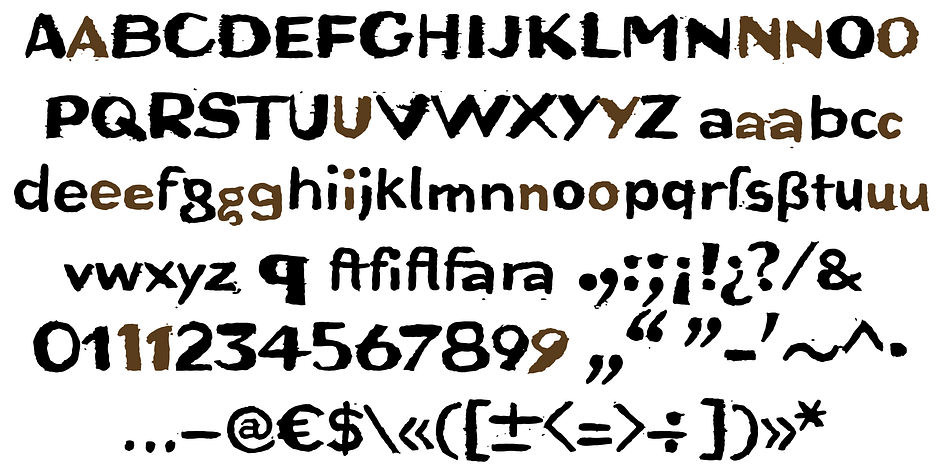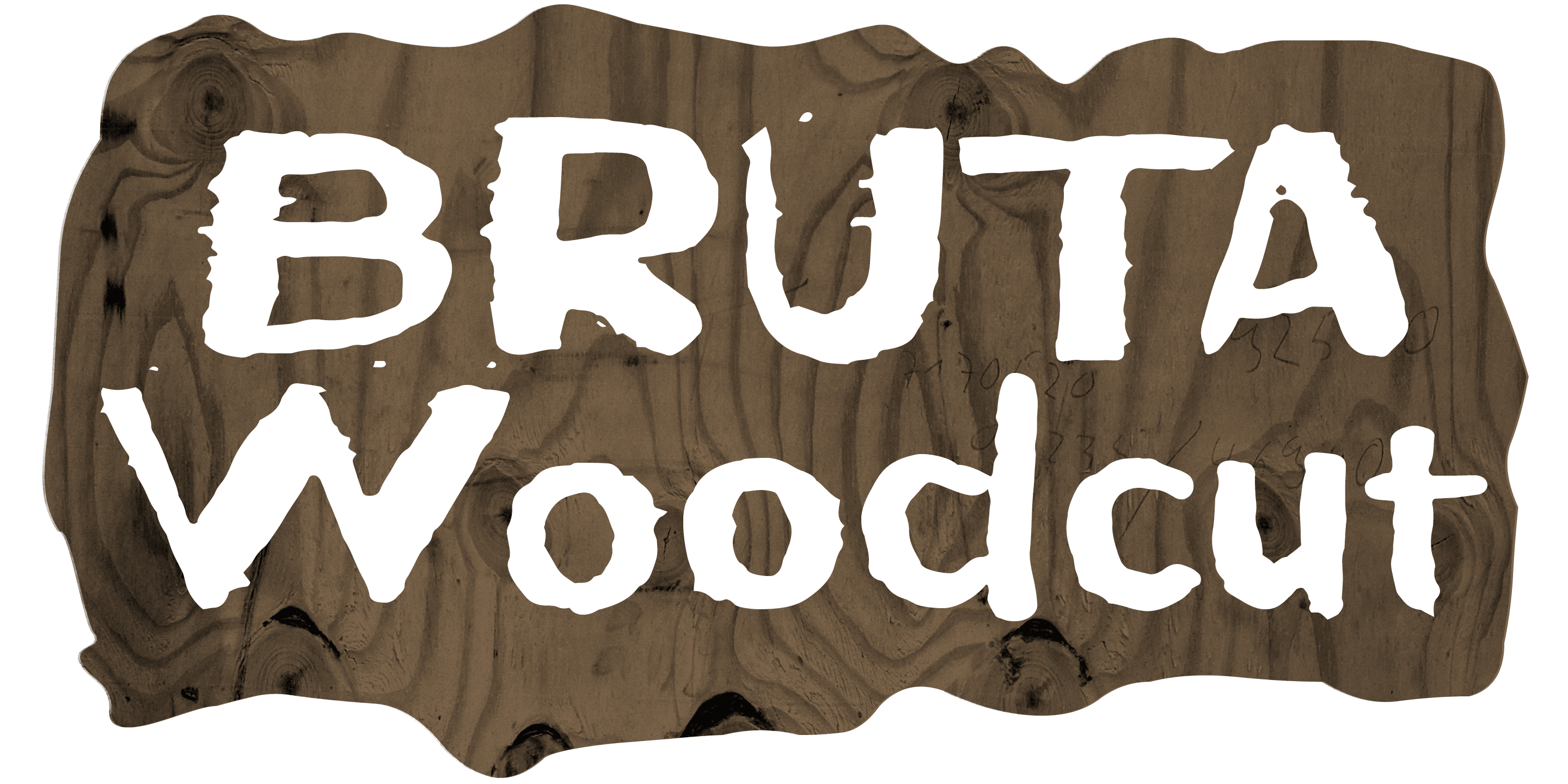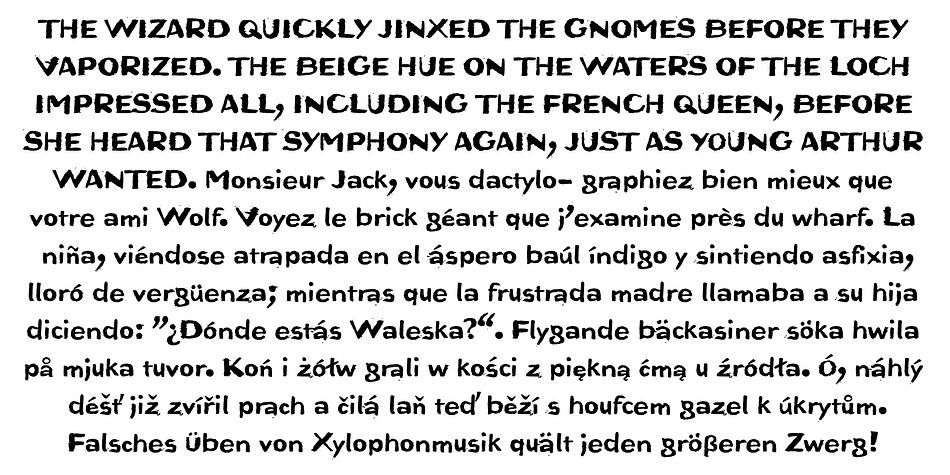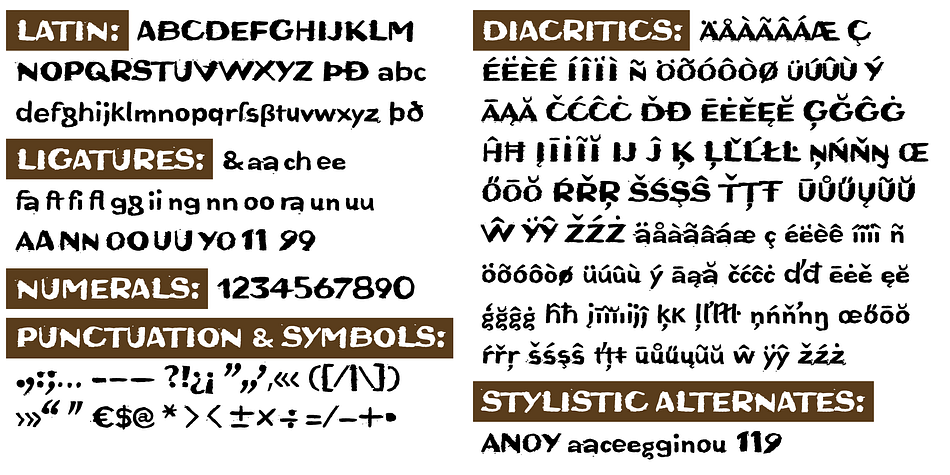
Bruta Woodcut
Designed by Ingo Zimmerman, Bruta Woodcut is a hand display font published by ingoFonts.
An alphabet originally carved in wood
The German term for characters or letters is “Buchstaben,” literally “Buche” (beech) and “Stab” (rod or stick), and dates back to the Germanic custom of carving runic characters in beechwood sticks.
On New Year’s Eve, 2014, I used the occasion to cut “real beech characters” myself.
I carved all the characters of this font in woodcarving manner, without tracing and mirror-inverted, in smoothly planed beech rods.
After printing on paper, the digital font you see here was created from the negative typeface.
Displaying the beauty and characteristics of the Bruta Woodcut font family.
An alphabet originally carved in wood
The German term for characters or letters is “Buchstaben,” literally “Buche” (beech) and “Stab” (rod or stick), and dates back to the Germanic custom of carving runic characters in beechwood sticks. On New Year’s Eve, 2014, I used the occasion to cut “real beech characters” myself. I carved all the characters of this font in woodcarving manner, without tracing and mirror-inverted, in smoothly planed beech rods. After printing on paper, the digital font you see here was created from the negative typeface.
Designer Ingo Zimmerman